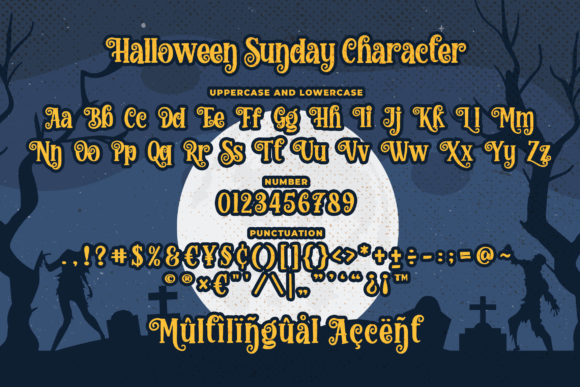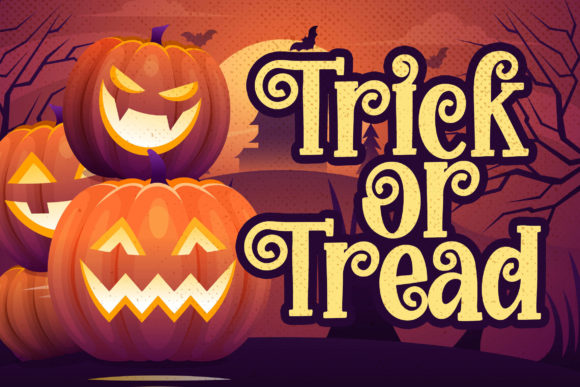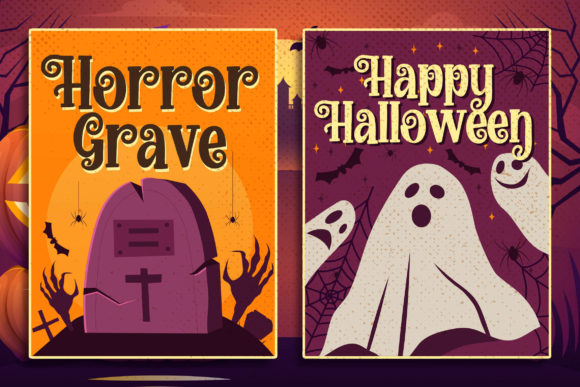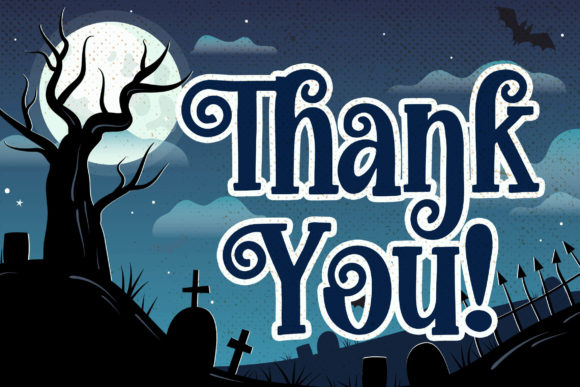
Unleash the Spooky Spirit with Halloween Sunday Font
Are you looking for a font that captures the essence of Halloween? Do you want to add a touch of spookiness to your designs, crafts, or projects? Look no further than the Halloween Sunday Font, a quirky-lettered and spooky display font that’s perfect for any Halloween-related project or crafty idea. In this article, we’ll dive into the features and benefits of this font, and explore how you can use it to create unique and eye-catching designs.
What is Halloween Sunday Font?
Halloween Sunday Font is a display font designed specifically for Halloween-themed projects. Its quirky and spooky lettering style makes it stand out from other fonts, and its versatility allows you to use it for a wide range of applications, from invitations and posters to crafts and DIY projects. Whether you’re a designer, crafter, or simply someone who loves Halloween, this font is sure to inspire your creativity.
Key Features of Halloween Sunday Font
• Quirky and Spooky Lettering Style: The Halloween Sunday Font features a unique and playful lettering style that’s perfect for Halloween-themed projects.
• High-Quality Design: The font is designed with high-quality and crisp lines, making it perfect for printing and digital use.
• Easy to Read: Despite its quirky style, the font is easy to read, making it perfect for headlines, titles, and short texts.
• Versatile: The font can be used for a wide range of applications, from invitations and posters to crafts and DIY projects.
Benefits of Using Halloween Sunday Font
So, why should you use the Halloween Sunday Font for your projects? Here are just a few benefits:
• Adds a Touch of Spookiness: The font’s quirky and spooky style adds a touch of Halloween spirit to any project.
• Unique and Eye-Catching: The font’s unique style makes it stand out from other fonts, ensuring that your projects grab attention.
• Perfect for Crafters: The font is perfect for crafters, scrapbookers, and DIY enthusiasts who want to add a personal touch to their projects.
How to Use Halloween Sunday Font
Using the Halloween Sunday Font is easy. Here are a few ideas to get you started:
In conclusion, the Halloween Sunday Font is a quirky-lettered and spooky display font that’s perfect for any Halloween-related project or crafty idea. With its unique style, high-quality design, and versatility, this font is sure to inspire your creativity and add a touch of spookiness to your designs. So, don’t limit yourself – unleash your imagination and create unique and eye-catching designs with the Halloween Sunday Font.